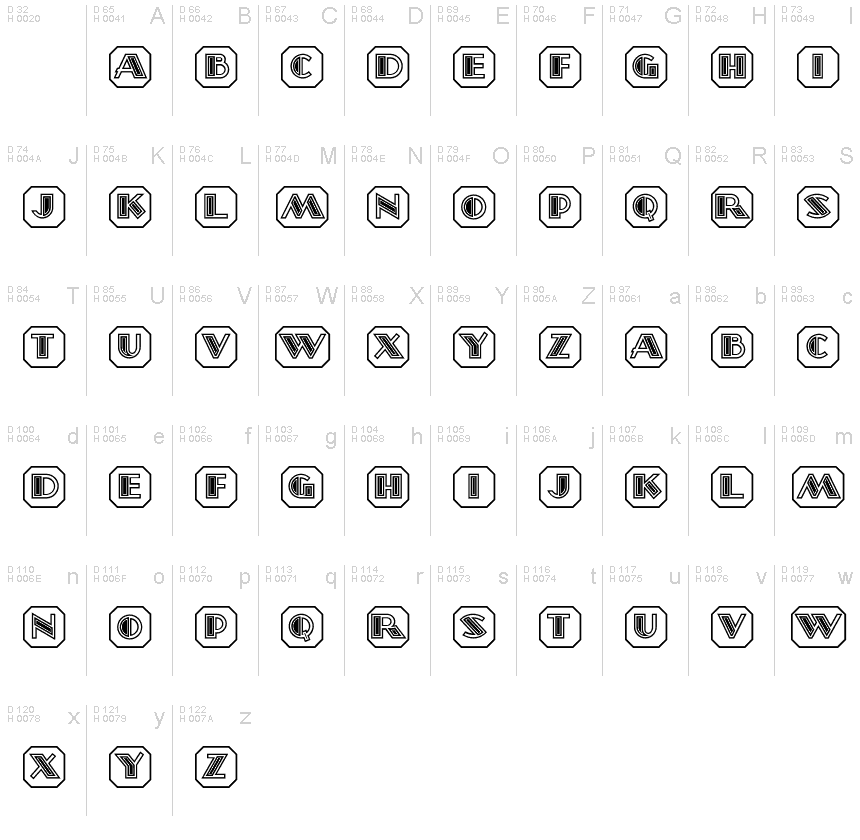
Morava Capitals Regular
Morava Capitals, an impressive display font designed by Vladimir Nikolic, is perfect for a wide range of creative projects. With its bold weight and expanded width, it's ideal for making a statement in headlines, titles, posters, and logos. The decorative style of this font adds a touch of elegance and sophistication to any design project. Whether you're working on branding for a luxury brand or designing invitations for a black-tie event, Morava Capitals will deliver the impact your project needs. Its unique letterforms are sure to catch the eye and leave a lasting impression on your audience.